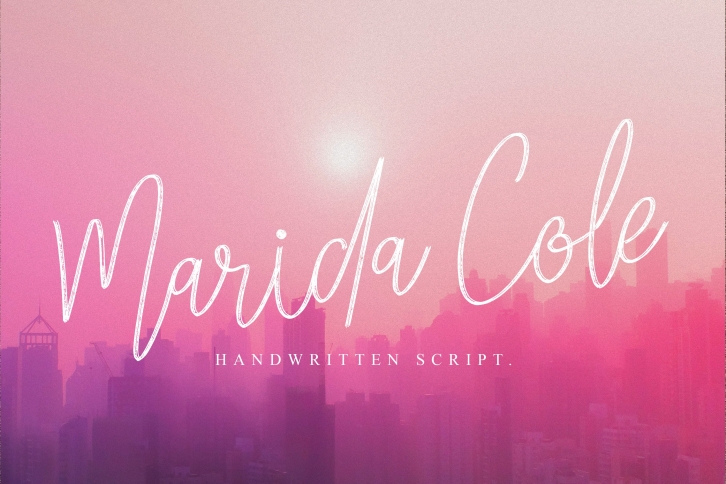
Marida Cole - Handwritten Script FONT Download
Marida Cole - Handwritten Script Font Download
Marida Cole is a great font that was designed by DYSA Studio. Imagine the amount of combinations you can create using this font! The archive is 18.46 MB and it was released on December 2, 2020. Marida Cole looks beautiful on wedding invitations, greeting cards, logos, posters, labels, t-shirt designs, logos, business cards and is perfect for use in ink or watercolor works, fashion, magazines, packaging and food menus, children's books and more!